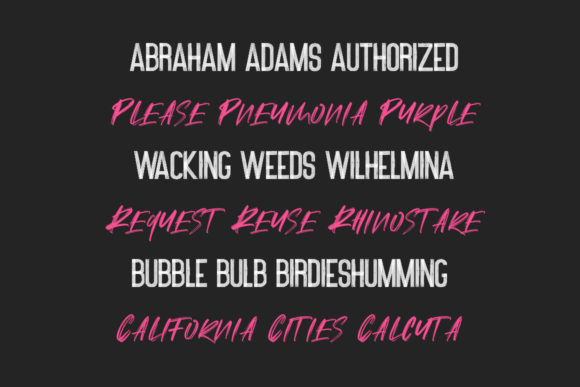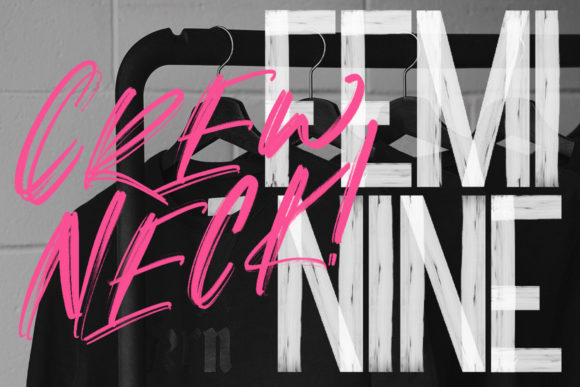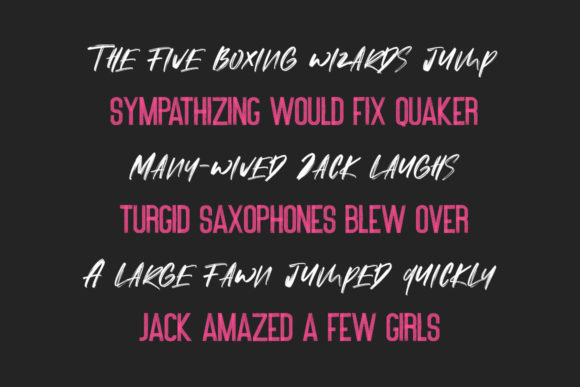
Introduction to Chorus Font
Chorus is a lovely and urban styled duo font (script and sans serif).
No matter the topic, this font will be an incredibly asset to your fonts’ library, as it has the potential to elevate any creation .
Key Features of Chorus Font
Why Choose Chorus Font?
Chorus Font offers exceptional quality and versatility, making it a valuable addition to your design toolkit. Whether you’re creating for personal projects or commercial use, Chorus Font delivers professional results.